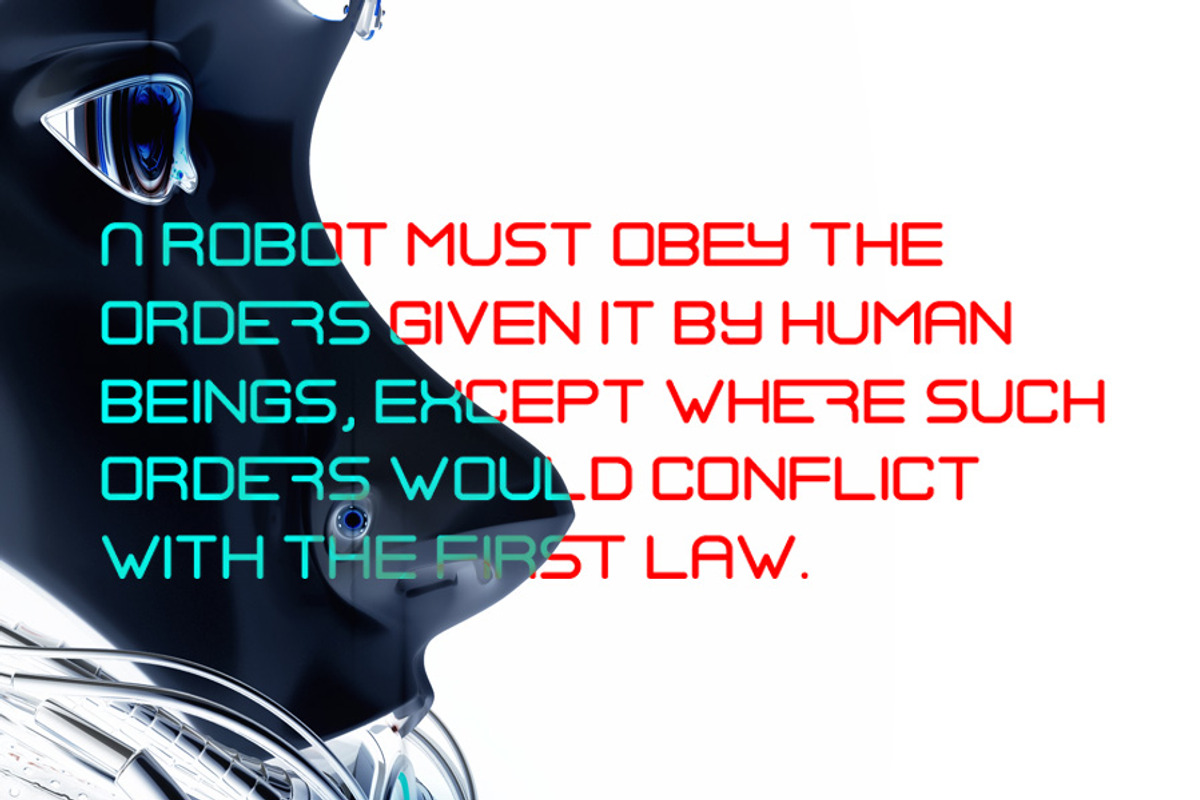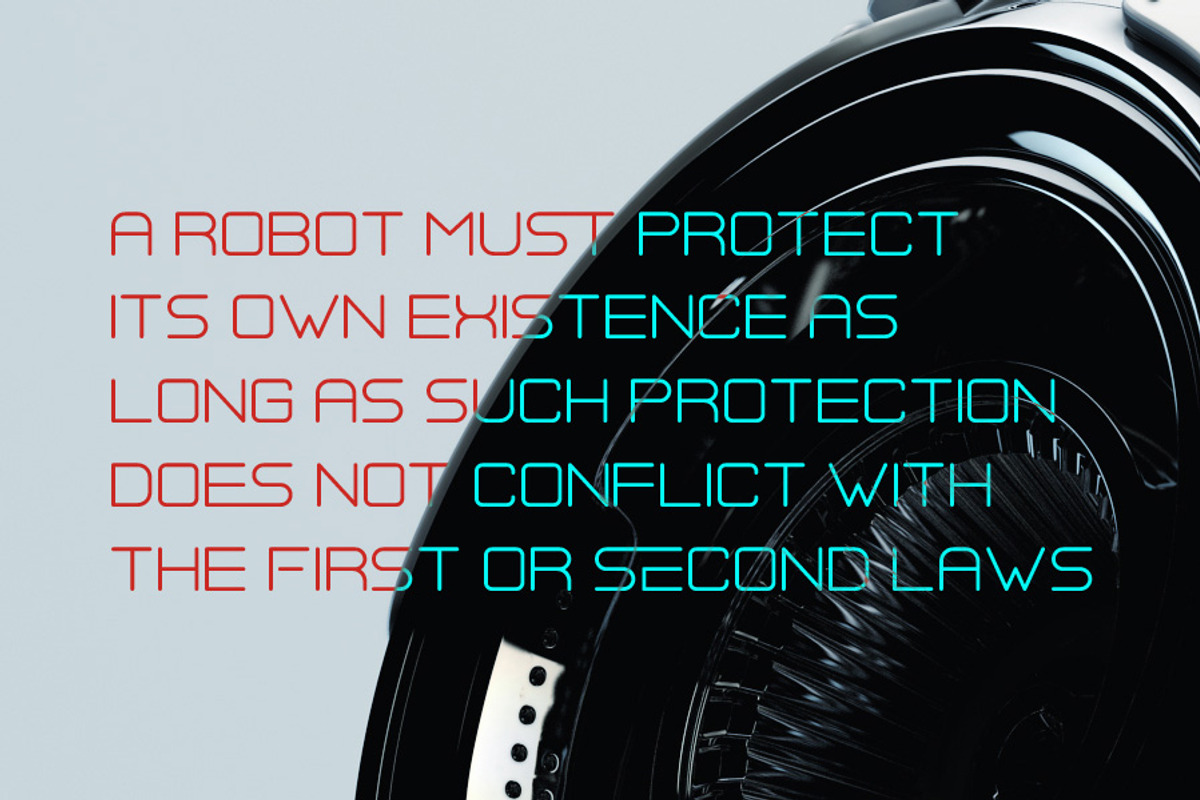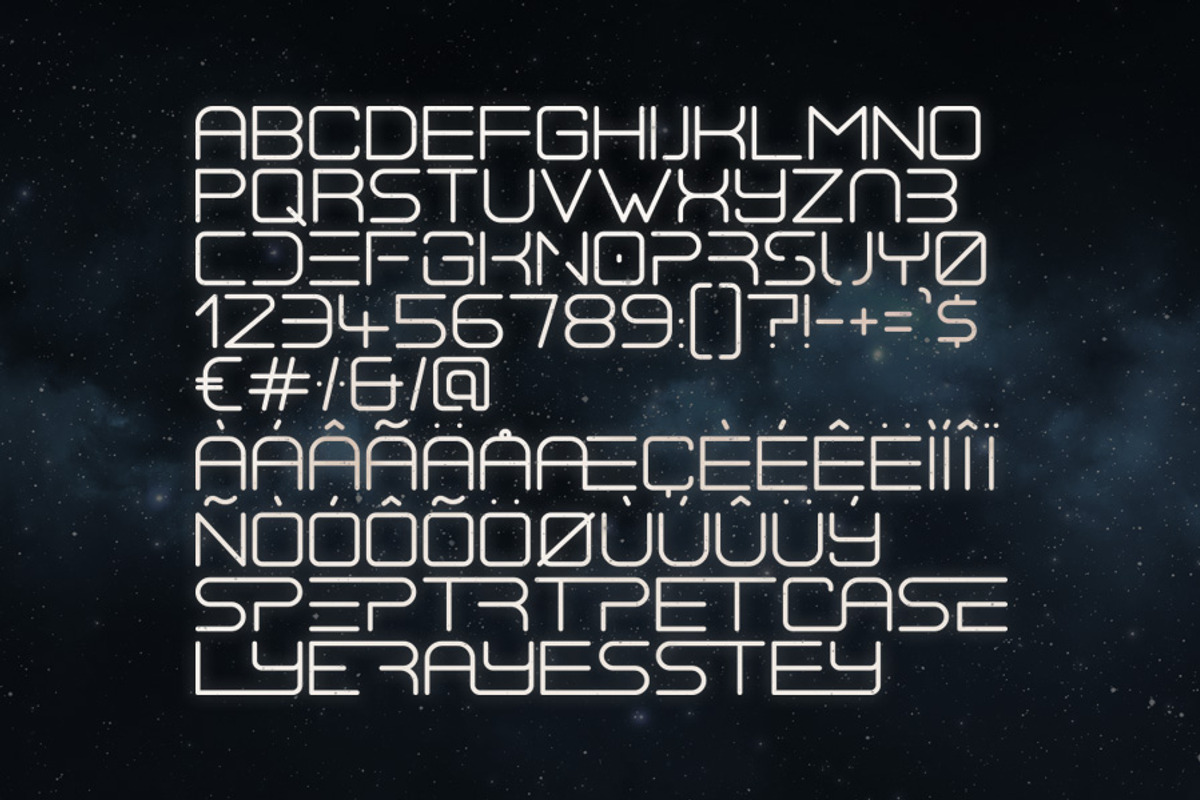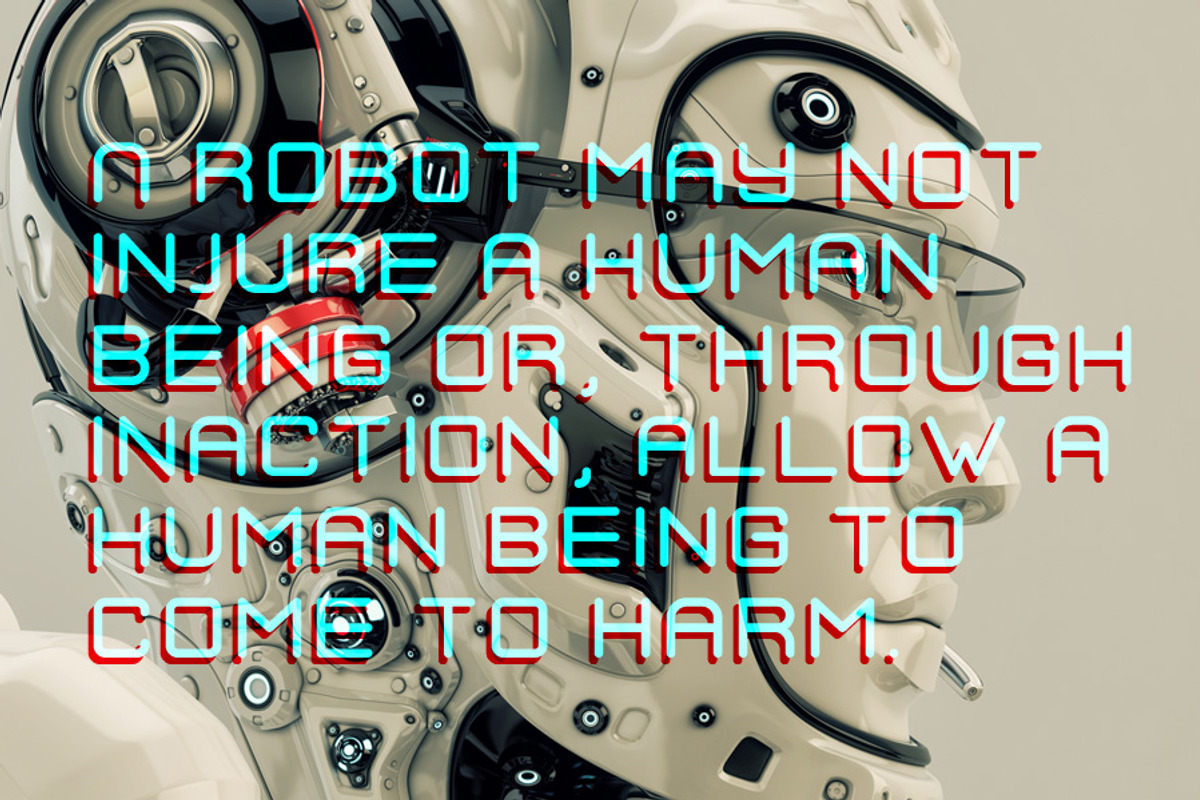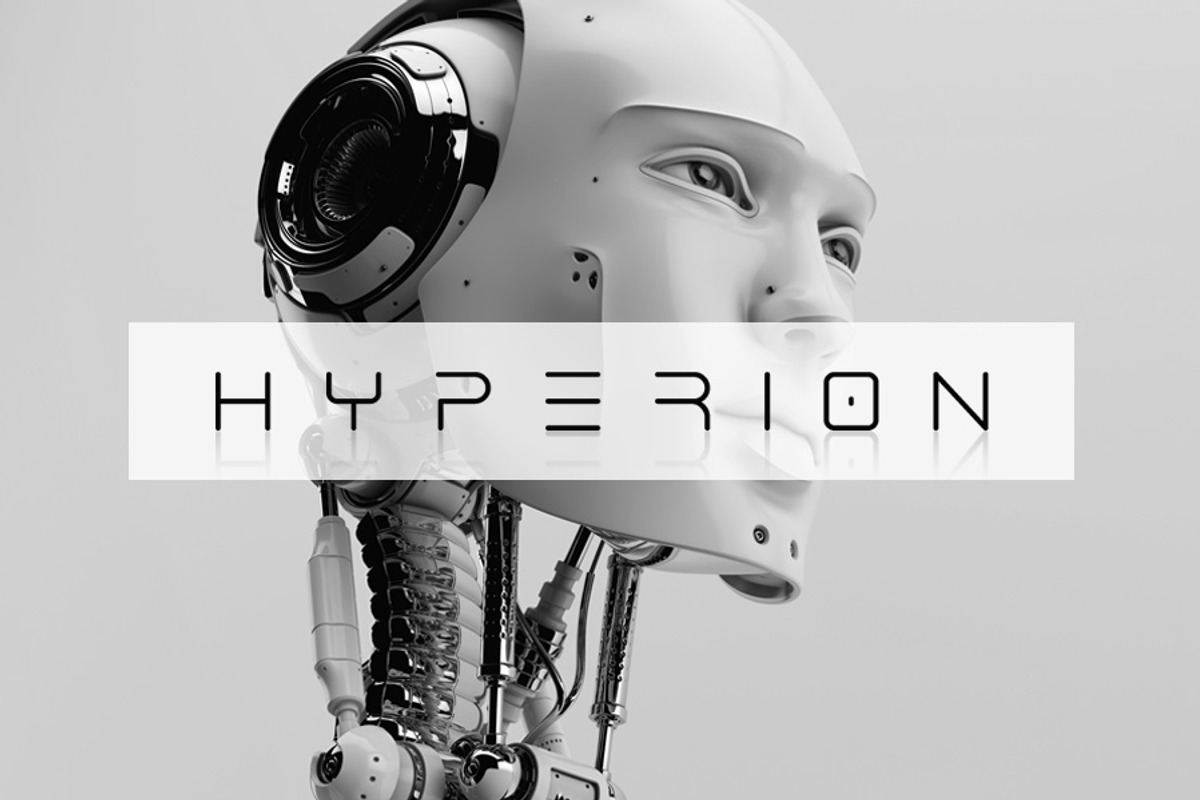
Hyperion Typeface
Hyperion is a flexible futuristic typeface for all your sci-fi needs.
- 3 Weights
- Alternate Characters (Toggle with caps lock)
- Custom Ligatures (Usable in softwares like Illustrator)